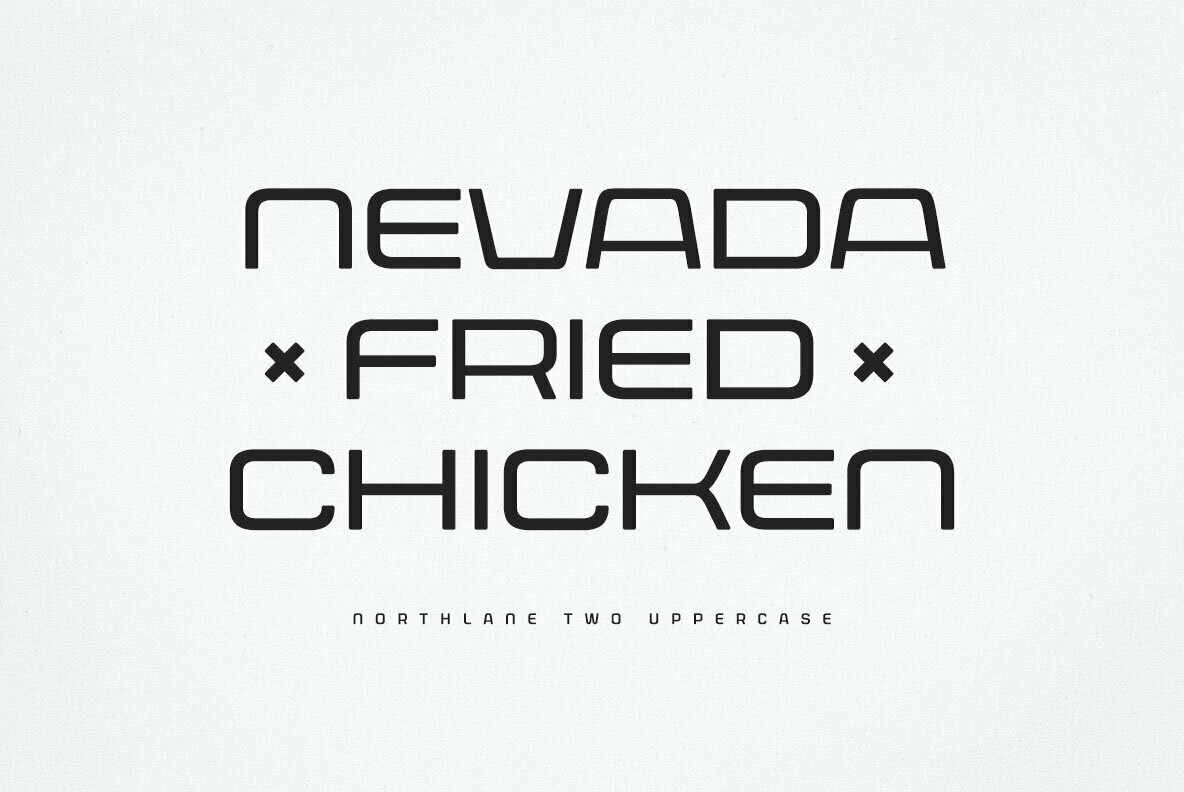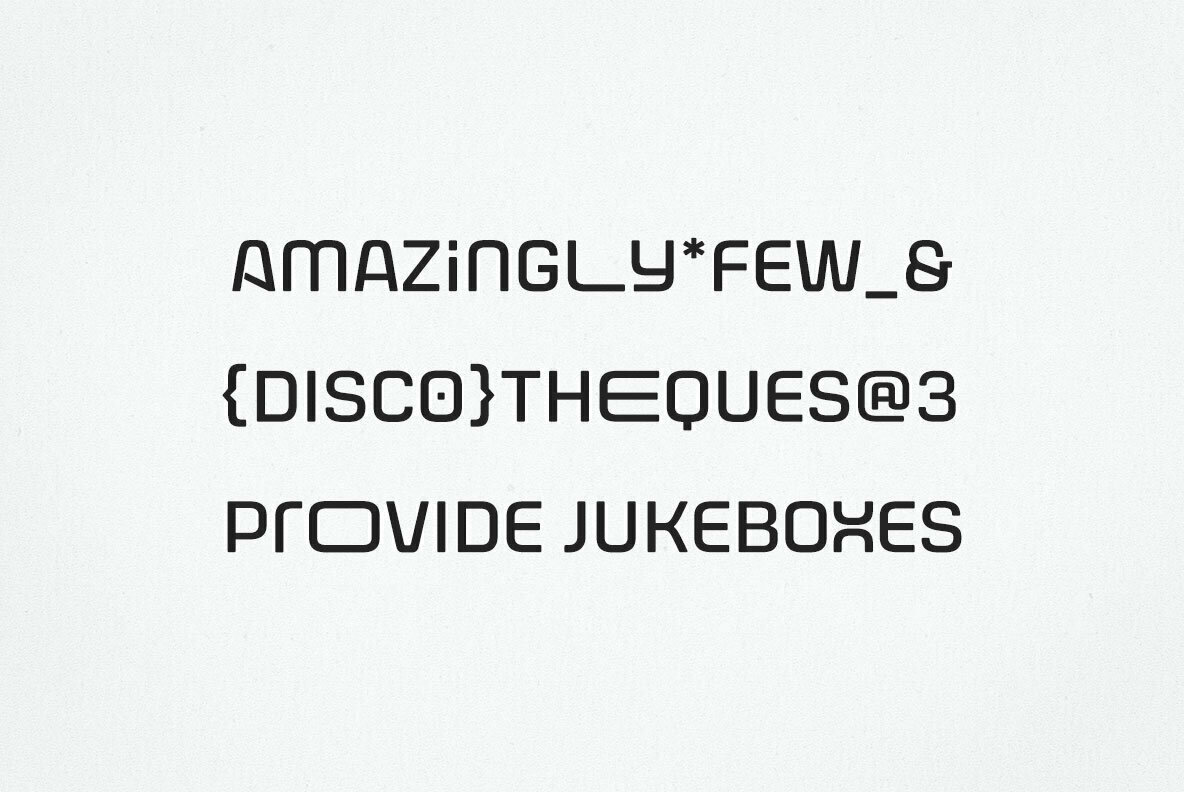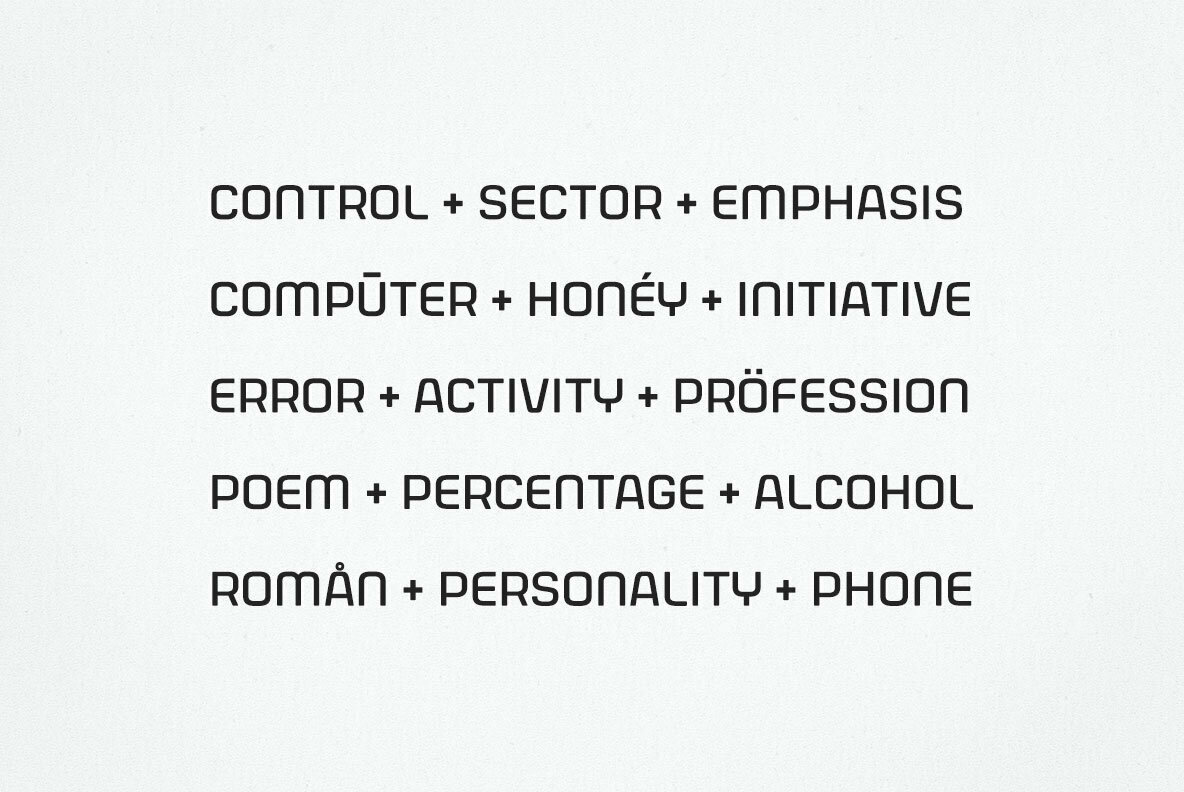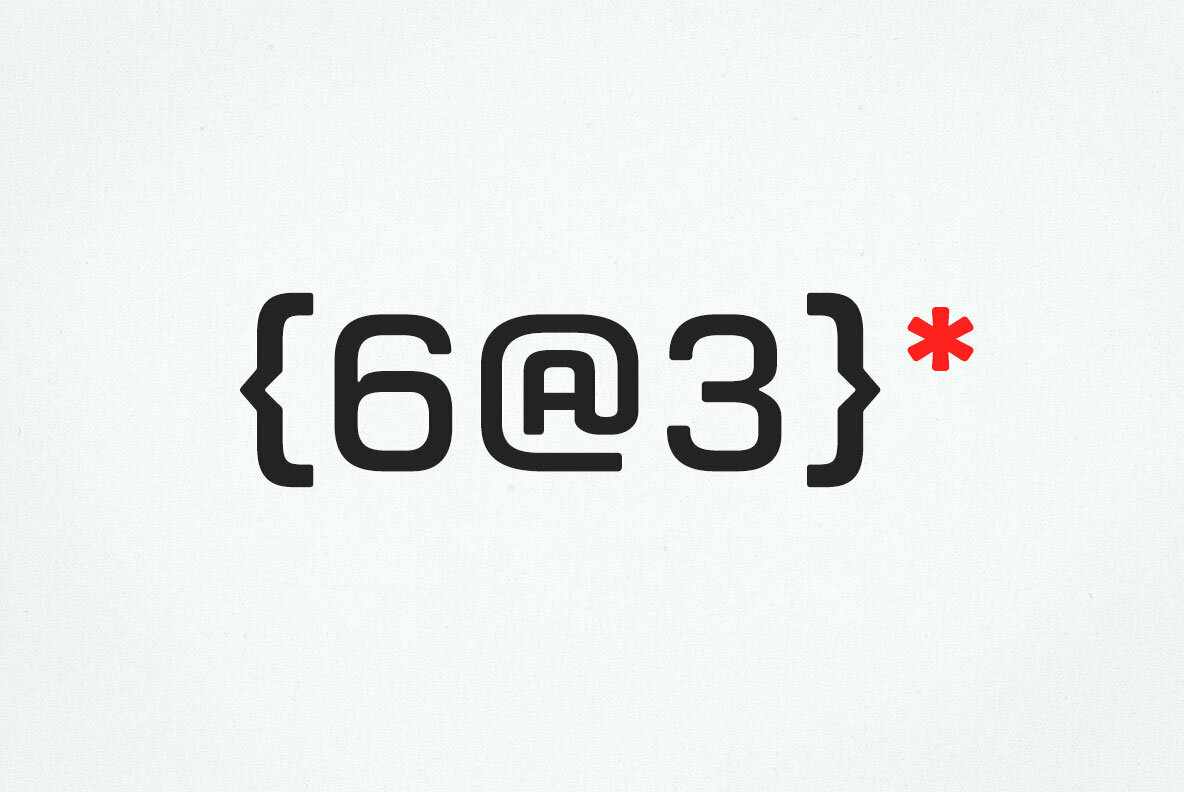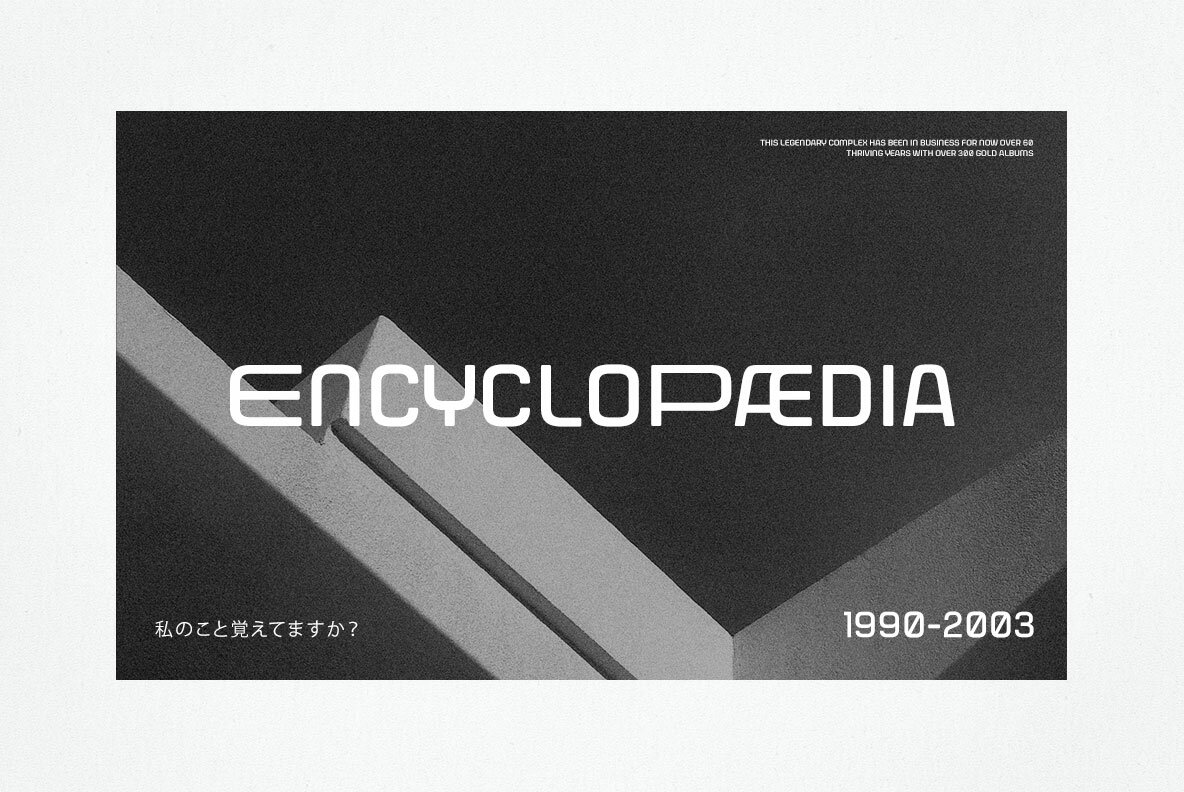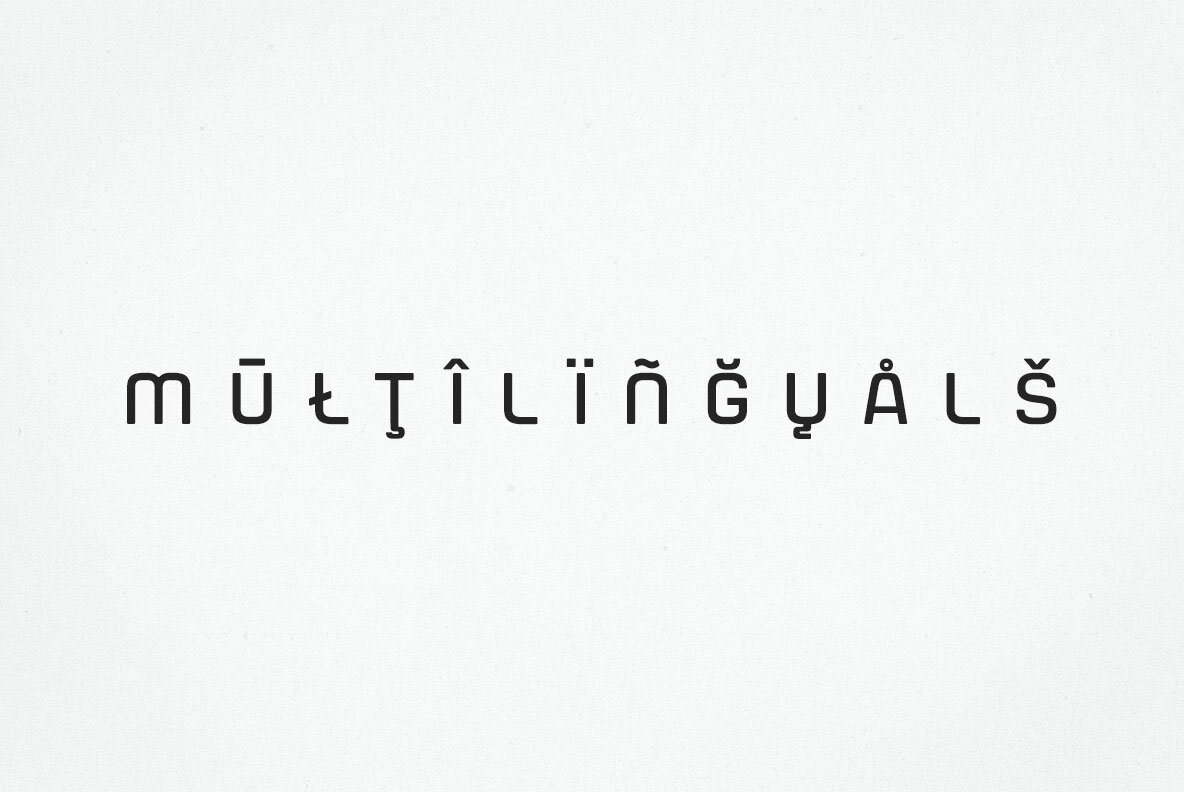
Northlane Font
Northlane One
Northlane Two
Northlane is minimalist font with smooth and elegant rounded edges. This font is projecting modern and futuristic vibe, perfectly suited for graphic design application ranging from editorial and corporate design to web and interaction design.